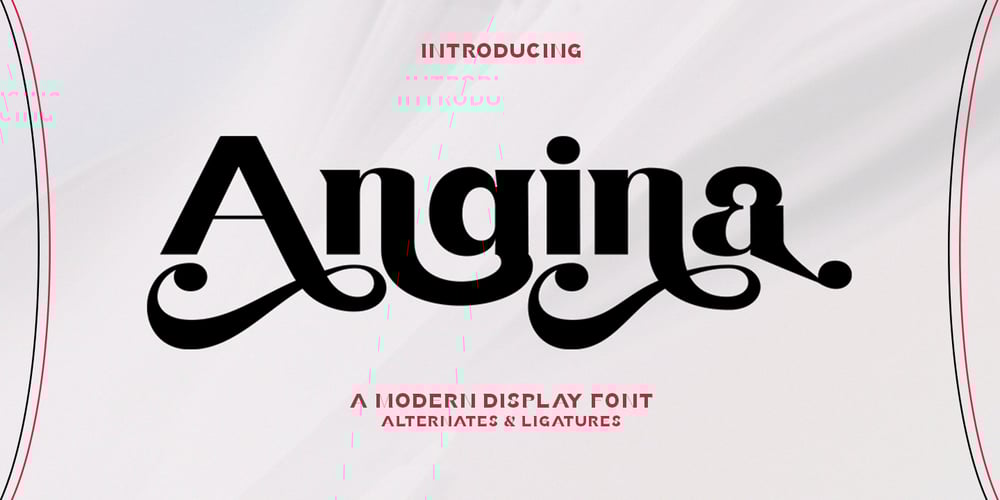
Angina Display Font Family was designed by Jumm ati and published by Masa Type. Angina Display contains 3 styles and family package options. Introducing, Angina Display – a modern sans with ligatures and alternates!Angina Display is a modern sans with a bunch of ligatures and alternates that will make your poster, cover or logo even more stunning and stand out! You can use this font as a stand alone font for any project such as logo, headline or branding. Also comes with the right arrow and star! This fonts support Multi Language.Feature UPPERCASE lowercase Number & Symbol International Glyphs Ligatures Thanks You.